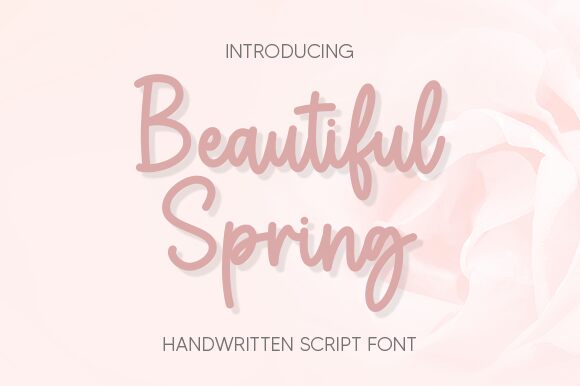
Beautiful Spring
Beautiful Spring is a stunning handwritten font designed by Graphix Line Studio. Its semi-light weight adds a delicate touch to any project and its playful style brings a sense of joy and whimsy. This font is perfect for projects that require a personal touch, such as wedding invitations, greeting cards, or even handwritten notes. The Beautiful Spring font typeface can also be used for branding and logo design, adding a unique and memorable element to any business. Give your project the beauty of spring with this charming semi-light font.